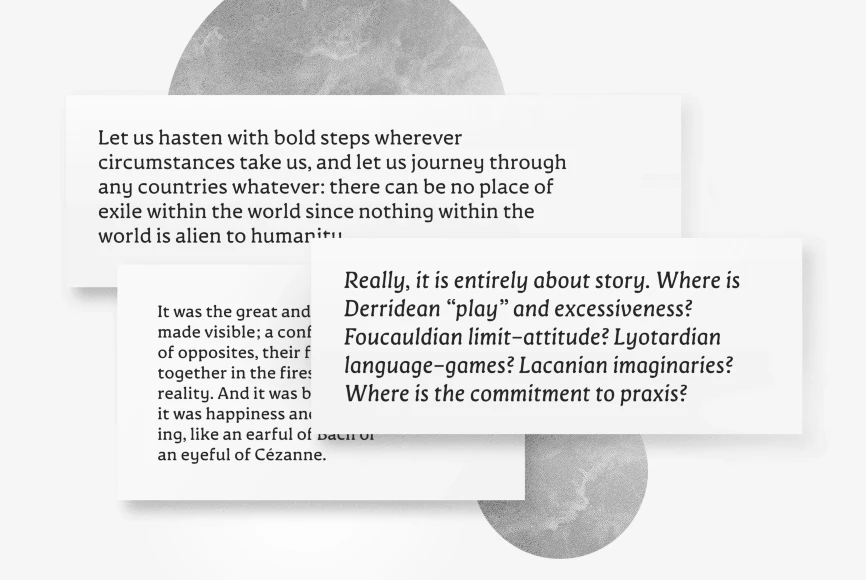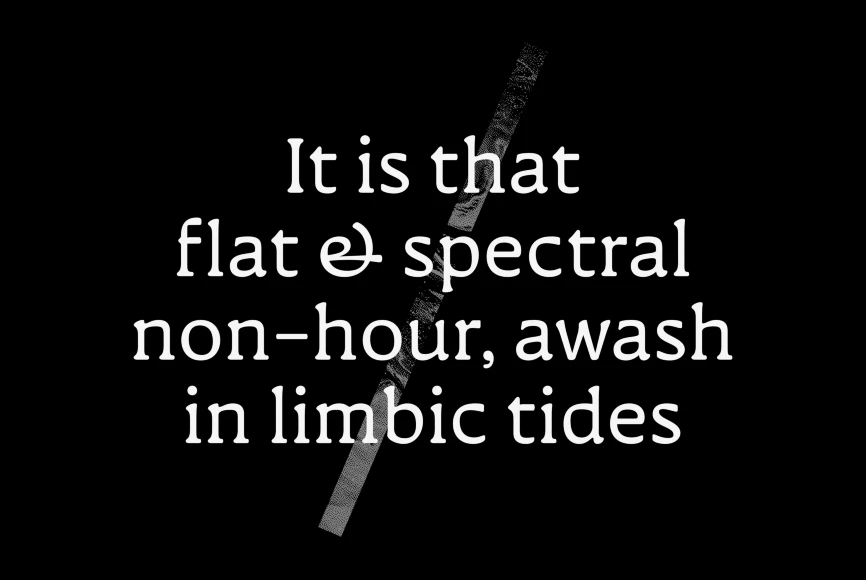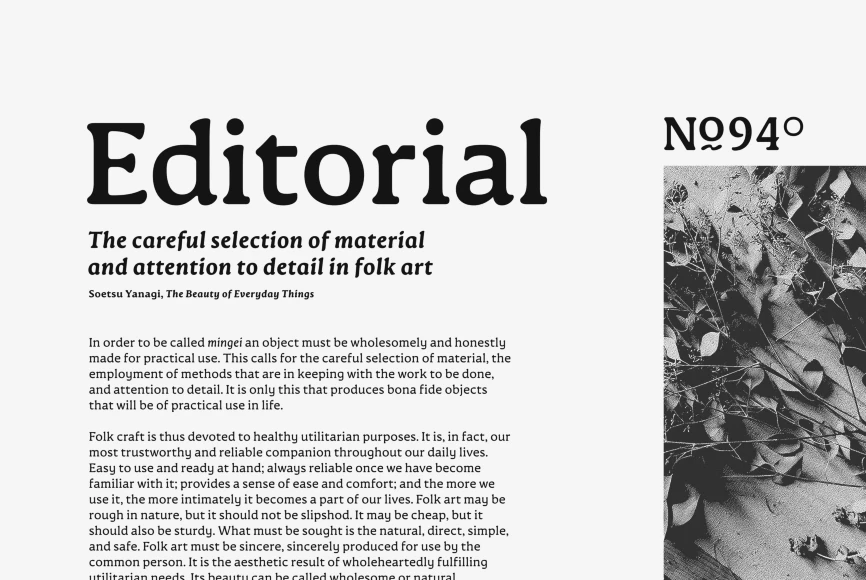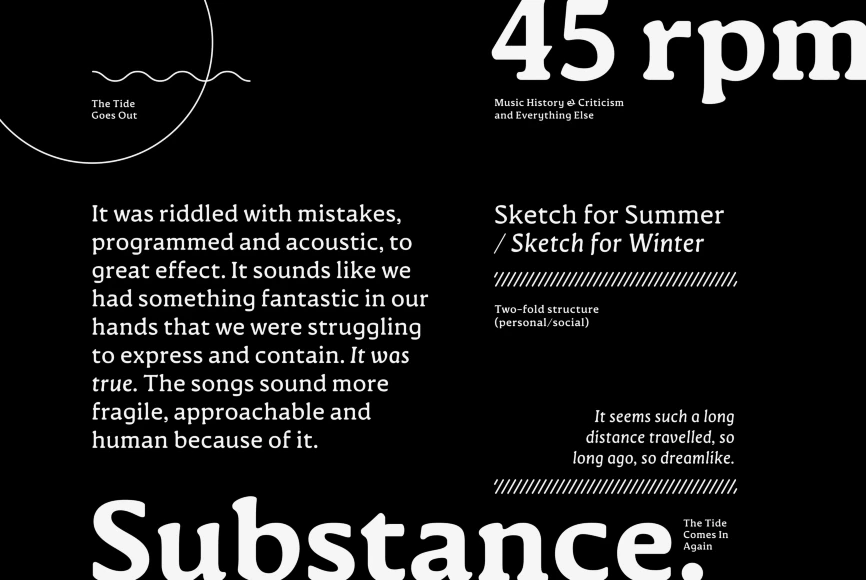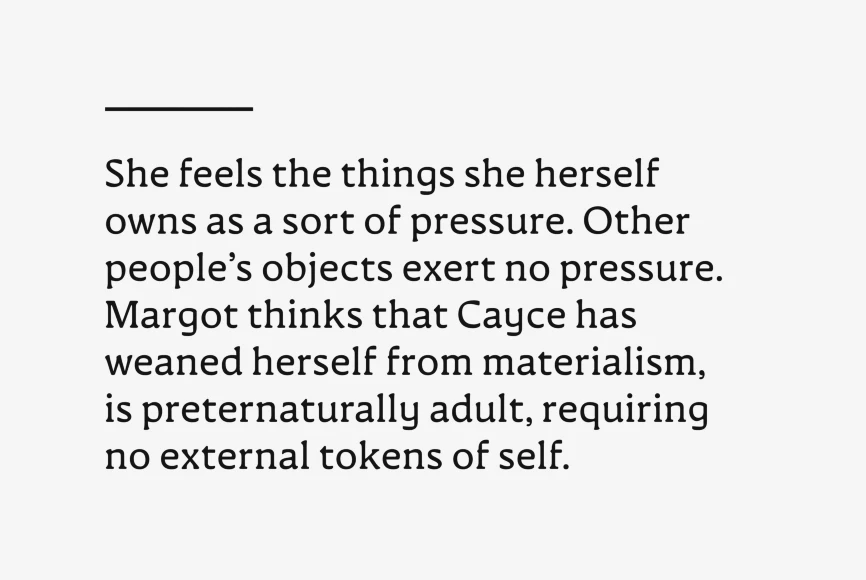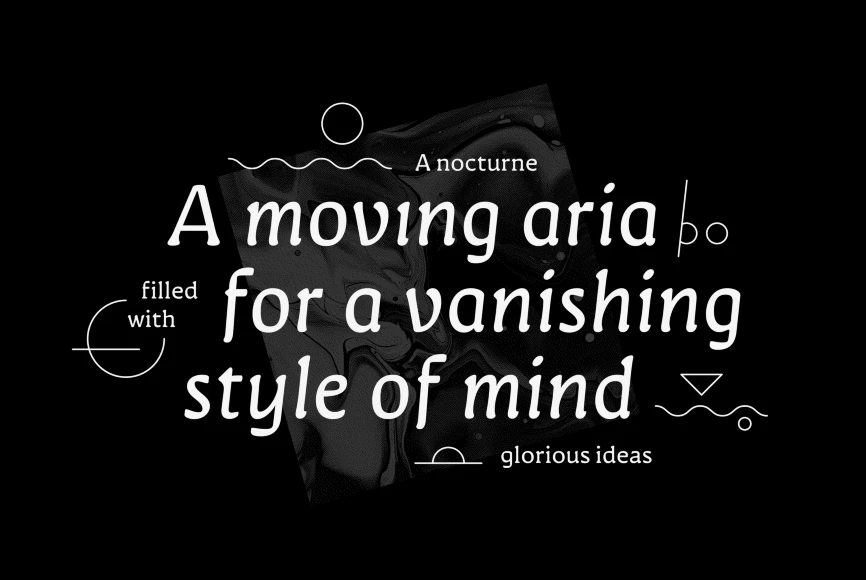
Novaletra Serif
Legibility. Flexibility. Personality. No need to pick two; Novaletra Serif CF has it all. Liven up body text, captions, and headlines with Novaletra’s smooth, low-contrast design set across seven weights with italics. Versatile and easy to read at any size, Novaletra includes useful features like wide language support across Latin and Cyrillic scripts, international currency symbols, fractions, tabular numbers, and more.